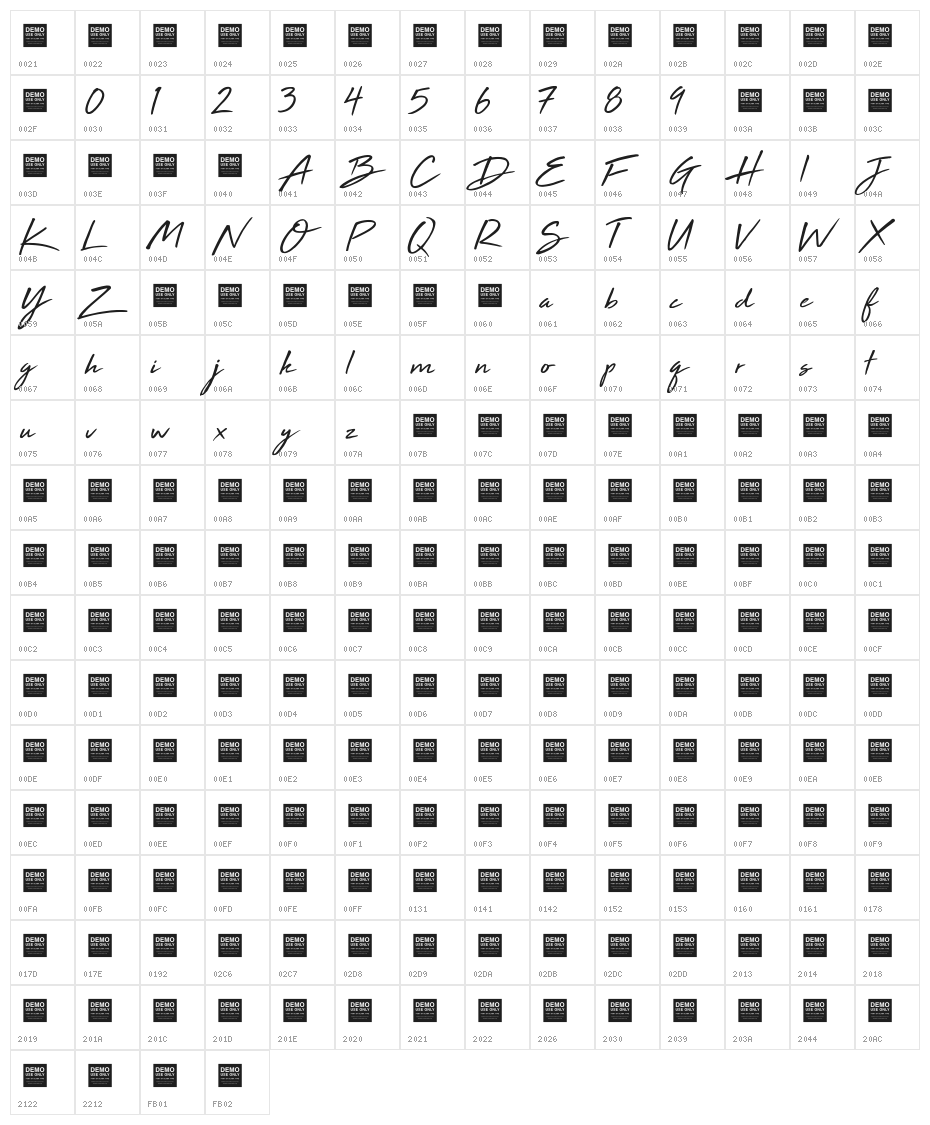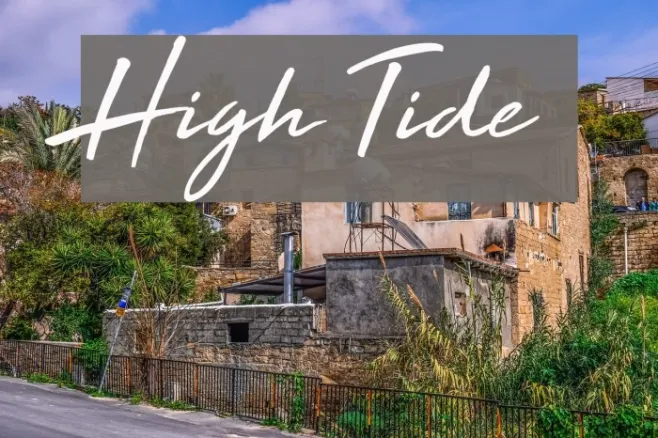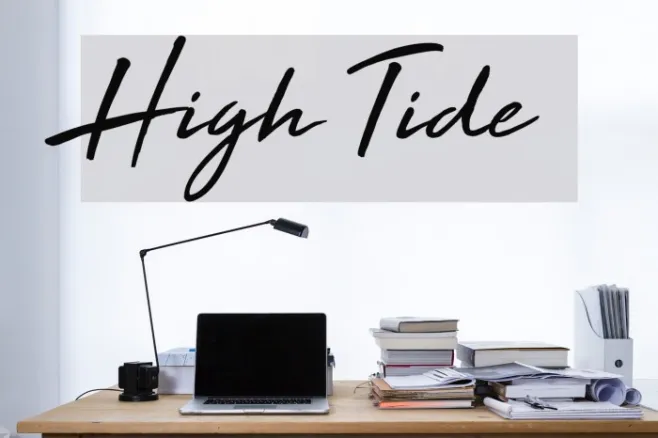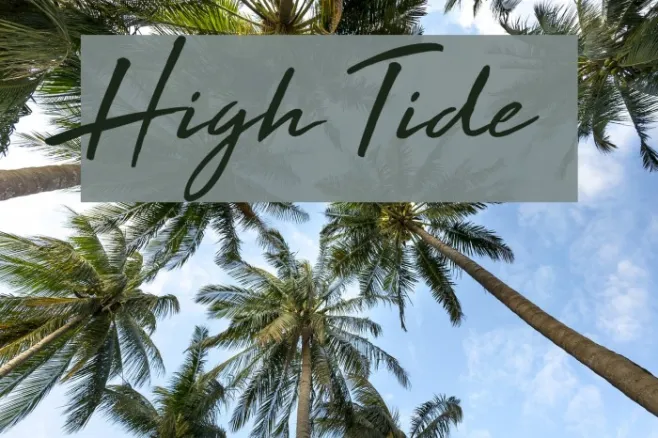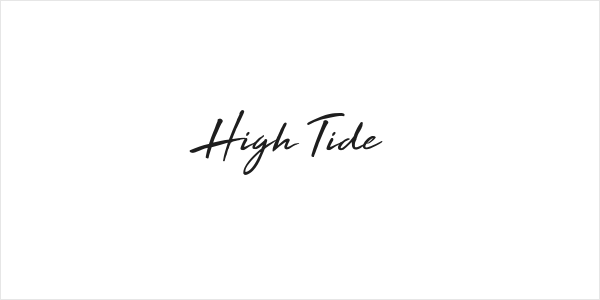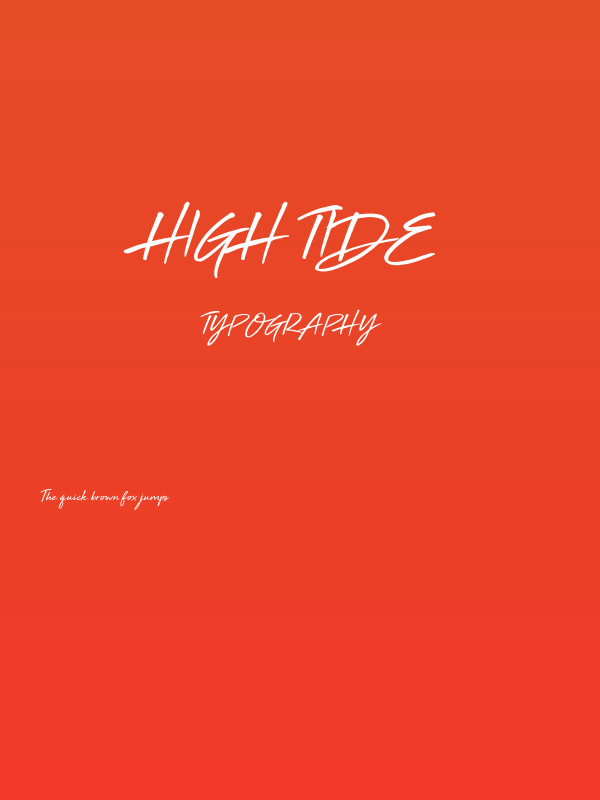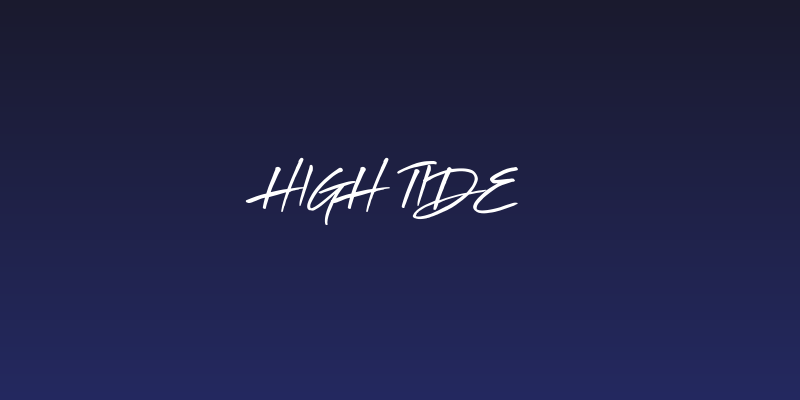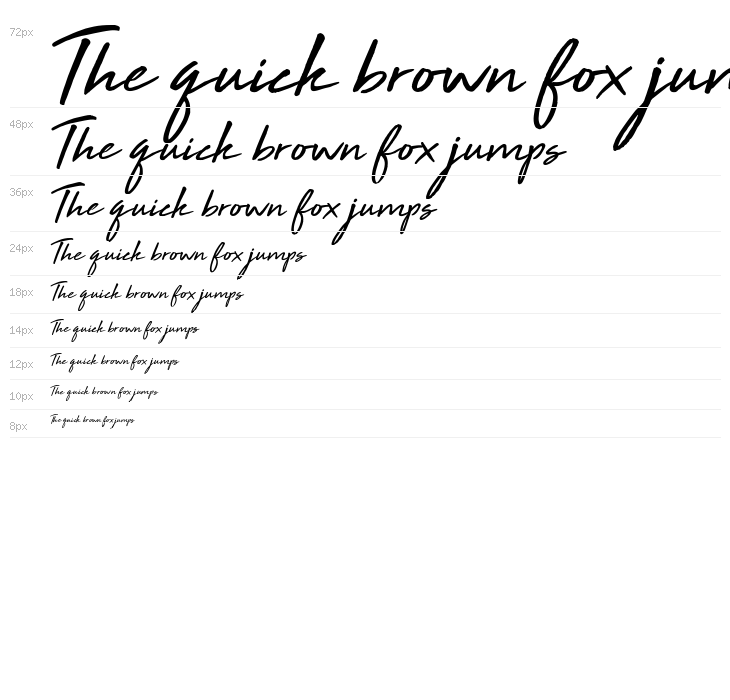
High Tide Font
High Tide Description
This font features a dynamic and fluid script style that mimics natural handwriting with a modern twist. The letters are elegantly connected, creating a seamless flow that is both casual and sophisticated. The uppercase letters are bold and expressive, while the lowercase letters maintain a consistent rhythm, enhancing readability. The numerals are distinct and match the overall style, providing a cohesive look. This font is perfect for projects that require a personal touch, such as invitations, branding, and creative designs.
Use CaseLogos, Invitations, Creative designs
Proposed ProjectsIdeal for wedding invitations, branding, logos, and creative design projects.